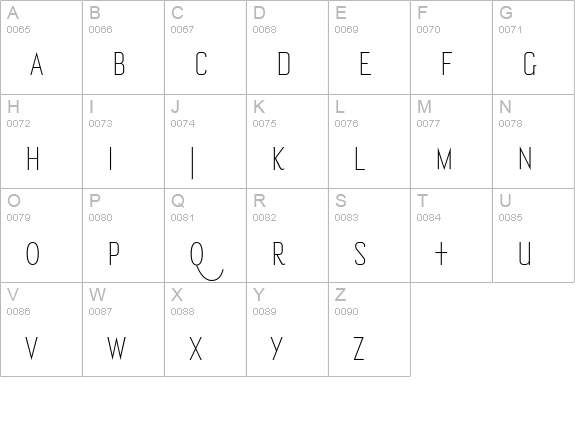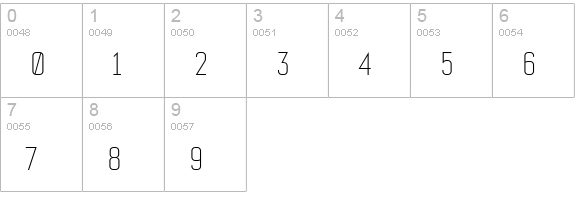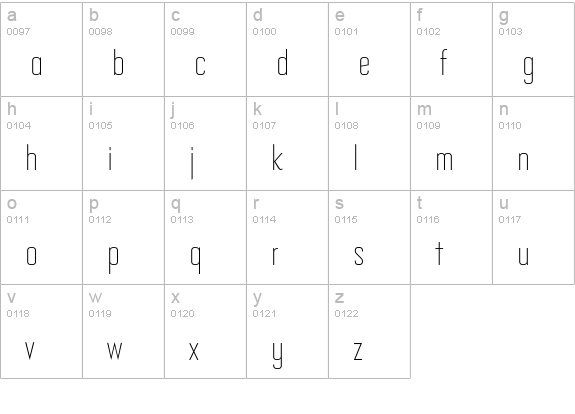
Bourgeois LightCondAlt Font Details
Bourgeois LightCondAlt is a sleek and modern font that exudes sophistication and elegance. Its condensed style gives it a unique flair that is perfect for creating eye-catching designs. With its clean lines and subtle curves, this font is versatile and can be used for a variety of projects, from branding to editorial design. What sets Bourgeois LightCondAlt apart is its versatility and readability, making it a great choice for both print and digital applications. Whether you're designing a sleek logo or crafting a stylish poster, this font is sure to make your project stand out. Best of all, Bourgeois LightCondAlt is available for free download at FontsMarket.com. So go ahead and elevate your designs with this beautiful and effortlessly stylish font today!